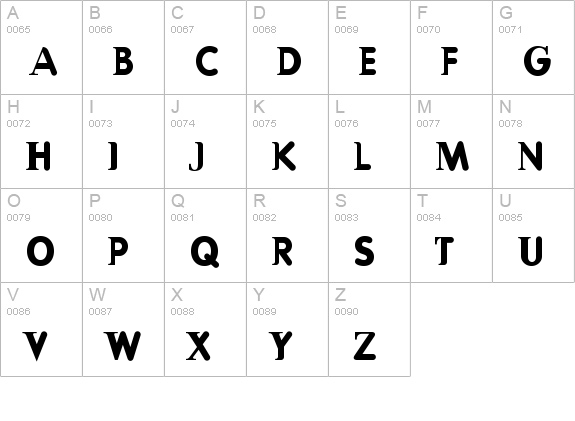
Introducing DeadHistoryBold font, a striking and powerful typeface that commands attention with its bold and historical-inspired design. This font exudes a sense of strength and elegance, making it perfect for headlines, titles, and other prominent text. DeadHistoryBold features intricate details and sharp edges that give it a unique and eye-catching look. What's even better is that DeadHistoryBold is available for free download at FontsMarket.com. This means you can easily add this impressive font to your design arsenal without any cost. Whether you're working on a vintage-inspired project or looking to make a statement with your typography, DeadHistoryBold is sure to elevate your designs to the next level. Download it today and unleash the power of this remarkable font in your creative endeavors.